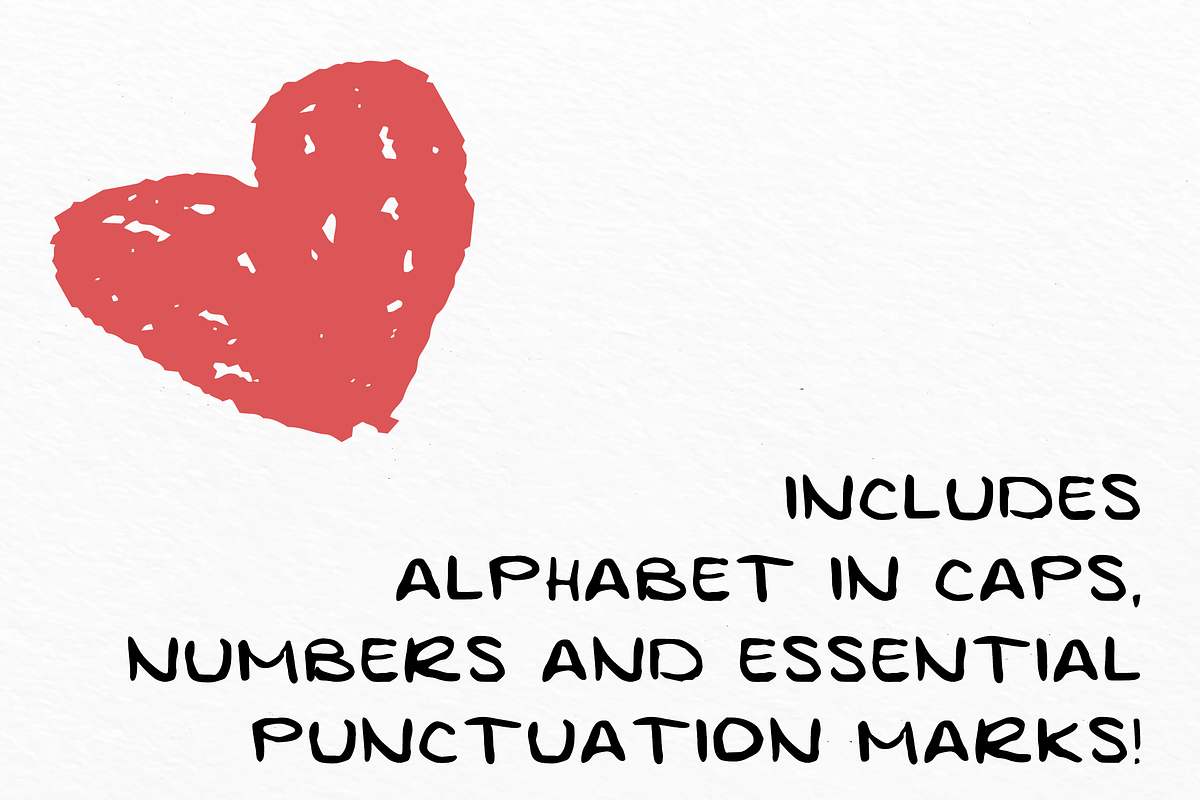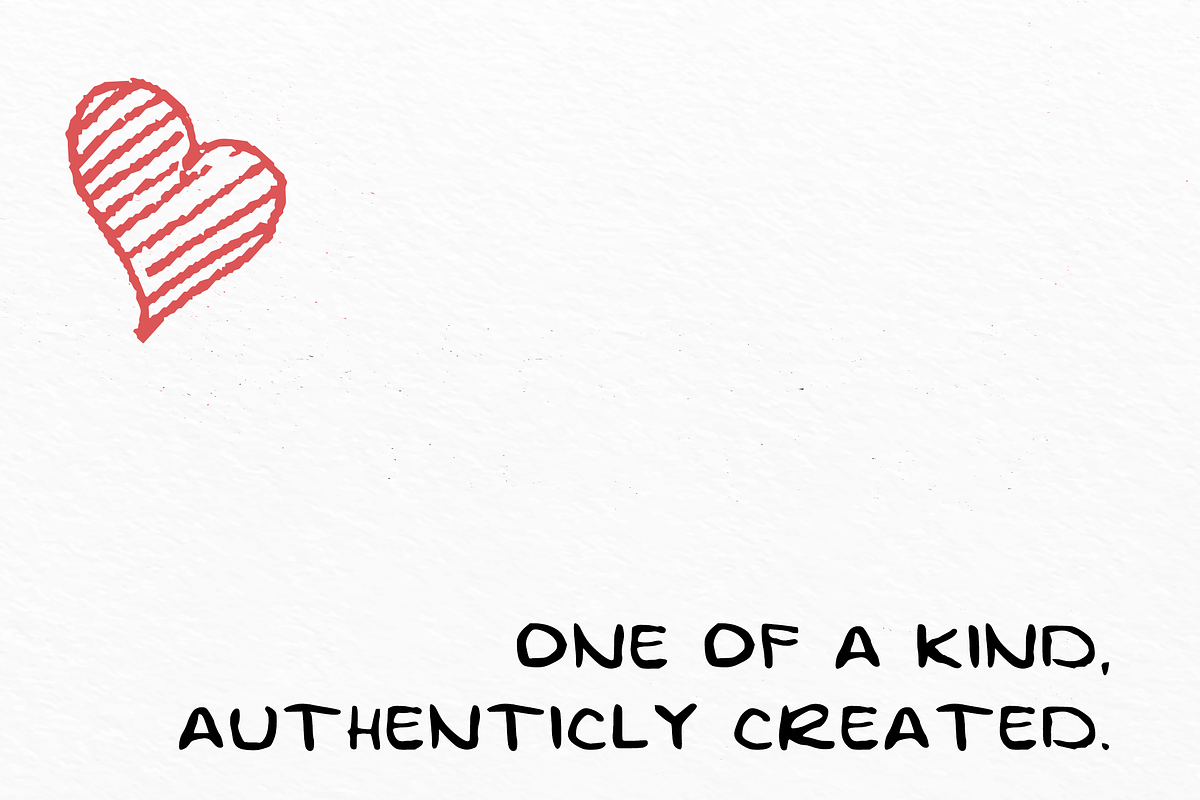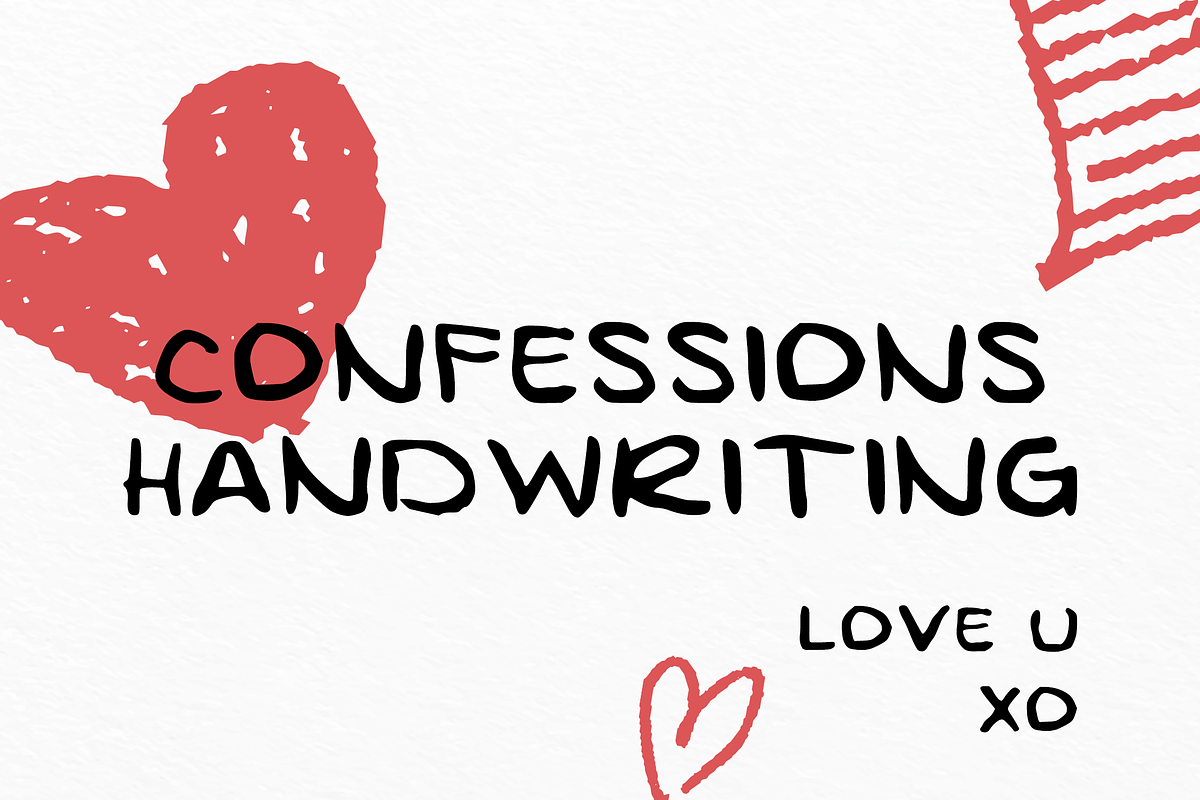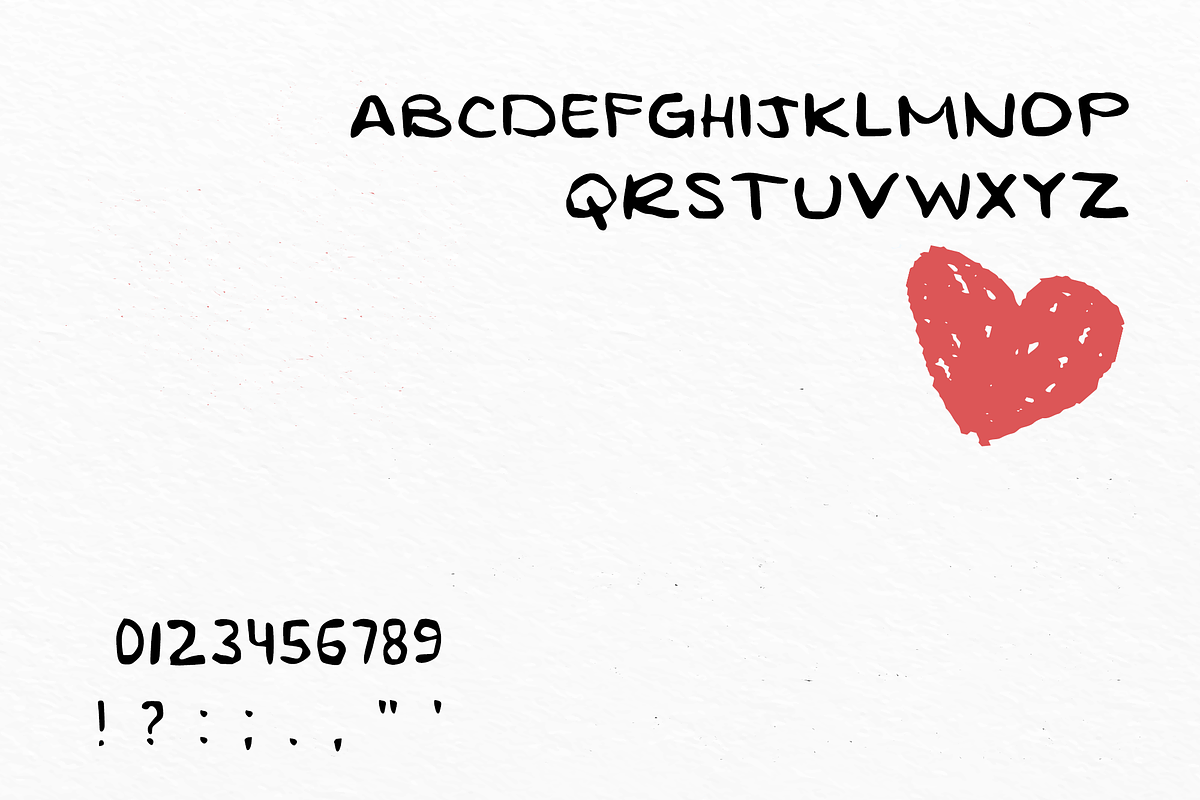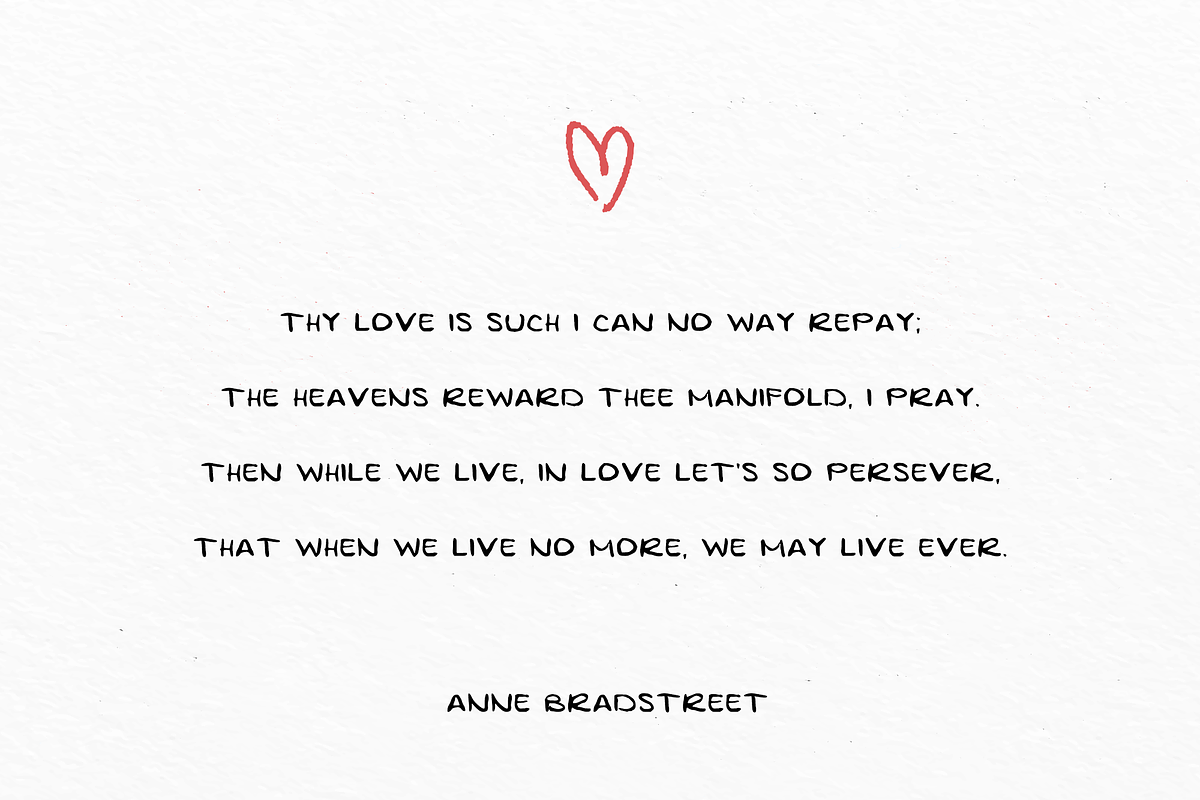
Handwriting Font - Confessions
Confessions Handwriting Font // for any creative and fun use! ✨ Passionate, sweet, heartfelt. Perfect to confess your deepest thoughts! Or make a shopping list? Equally important!
Great for your quote or text posts, letters, thumbnail titles for your new youtube video, lists and also friendly for children's books!